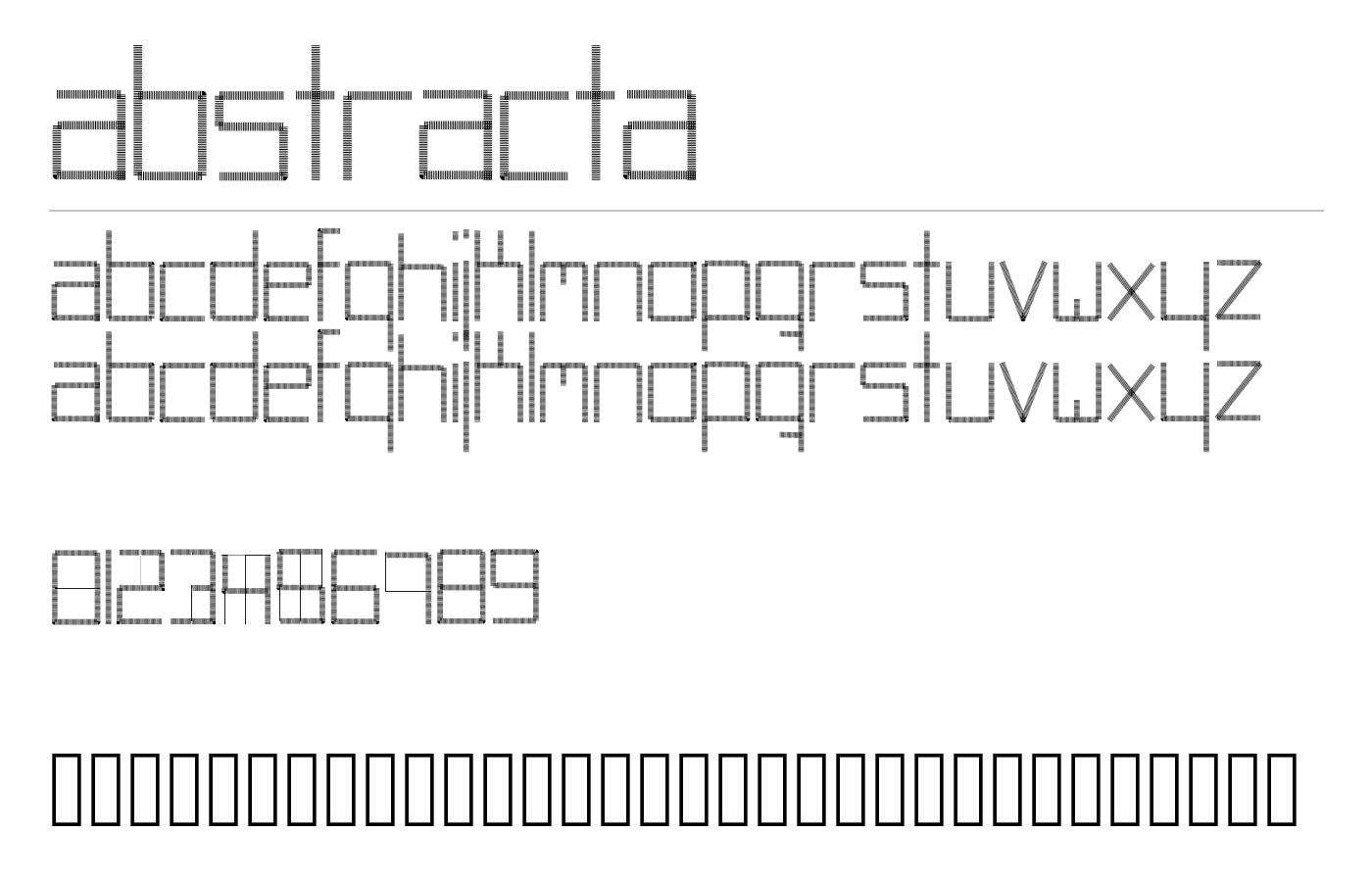
Abstracta is a distinctive, modern sans serif font characterized by its highly geometric and modular design, with letters constructed from evenly spaced horizontal lines that give it a digital, almost pixelated texture. Its thin weight and tall, narrow proportions create a sleek, futuristic feel, making it ideal for technology-focused branding, digital interfaces, or creative headlines seeking a unique, avant-garde look. This font's precise, grid-like appearance lends itself well to projects that want to convey innovation, minimalism, and a contemporary edge.
Abstracta Font